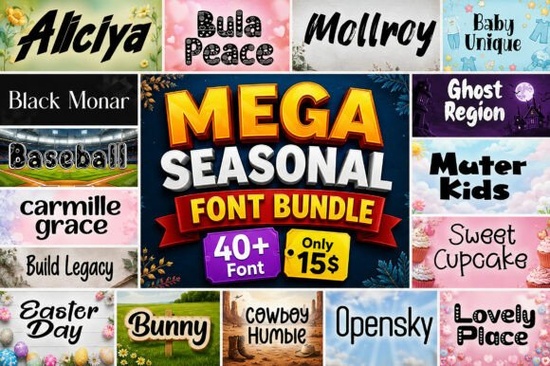
If you design for different seasons, holidays, or special events, you probably know how hard it is to keep a fresh set of fonts ready. Buying one font at a time adds up fast, and most free fonts don't include commercial rights. The Mega Seasonal Bundle Font solves that in one download: 40+ premium fonts covering scripts, kids styles, holiday designs, and bold display typefaces. Whether you make t-shirts, mugs, stickers, or social media graphics, this bundle gives you a practical library that works across projects without hunting for new fonts every time.
What kinds of fonts come in this seasonal bundle?
This bundle includes a wide mix of typefaces, so you are not stuck with just one style. You get script fonts that feel elegant and handwritten, brush fonts with a natural ink look, and decorative display fonts that stand out on posters and flyers. There are also cute kids fonts and holiday-specific options for Easter, Christmas, and other seasonal projects. Modern and unique fonts round out the collection, making it useful for both print and digital work.
For example, if you need a playful look for a children's birthday invitation, the kids fonts in this bundle work well. If you are designing a holiday card, the seasonal fonts give you festive lettering without extra editing. The mix means you can pair a script headline with a clean display font for contrast, all from one bundle.
How do seasonal fonts help with holiday marketing and events?
Seasonal fonts make your designs feel timely without starting from scratch. If you promote a summer sale, a spring event, or a Halloween collection, the right typeface sets the mood instantly. This bundle includes fonts that work for Easter, summer, fall, winter, and everything in between.
For instance, a handwritten script font gives a friendly, approachable feel for a summer flyer, while a bold display font works for a Halloween poster. The variety lets you match the tone of each season without buying separate fonts every few months. You can also mix and match fonts within the bundle to create consistent branding across different seasonal campaigns.
If you design for a brand that releases seasonal products, having a dedicated set of seasonal fonts means your typography stays cohesive. You can use a script font from the bundle for spring promotions and a decorative display font for winter, all from one collection.
Practical tips for getting the most out of this font bundle
- Test fonts in pairs. Pair a bold display font with a lighter script font to create contrast in your designs. For example, use a script for the headline and a clean sans-serif for body text.